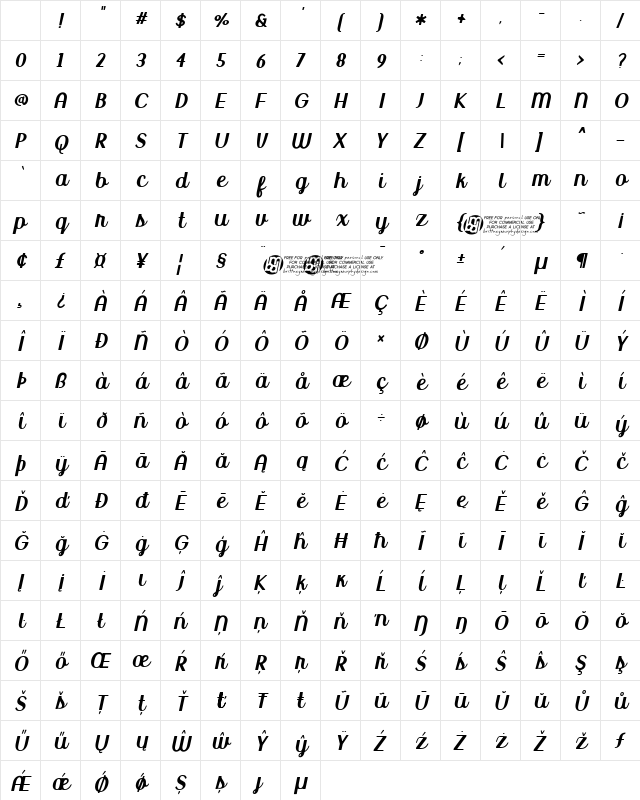
Complete Uptown Market Regular glyph index. Displaying only characters natively supported by Uptown Market Regular font.
Uptown Market is a composed and adaptable typeface that performs quietly and consistently across a wide range of design contexts.
Who designed the Uptown Market Regular font?